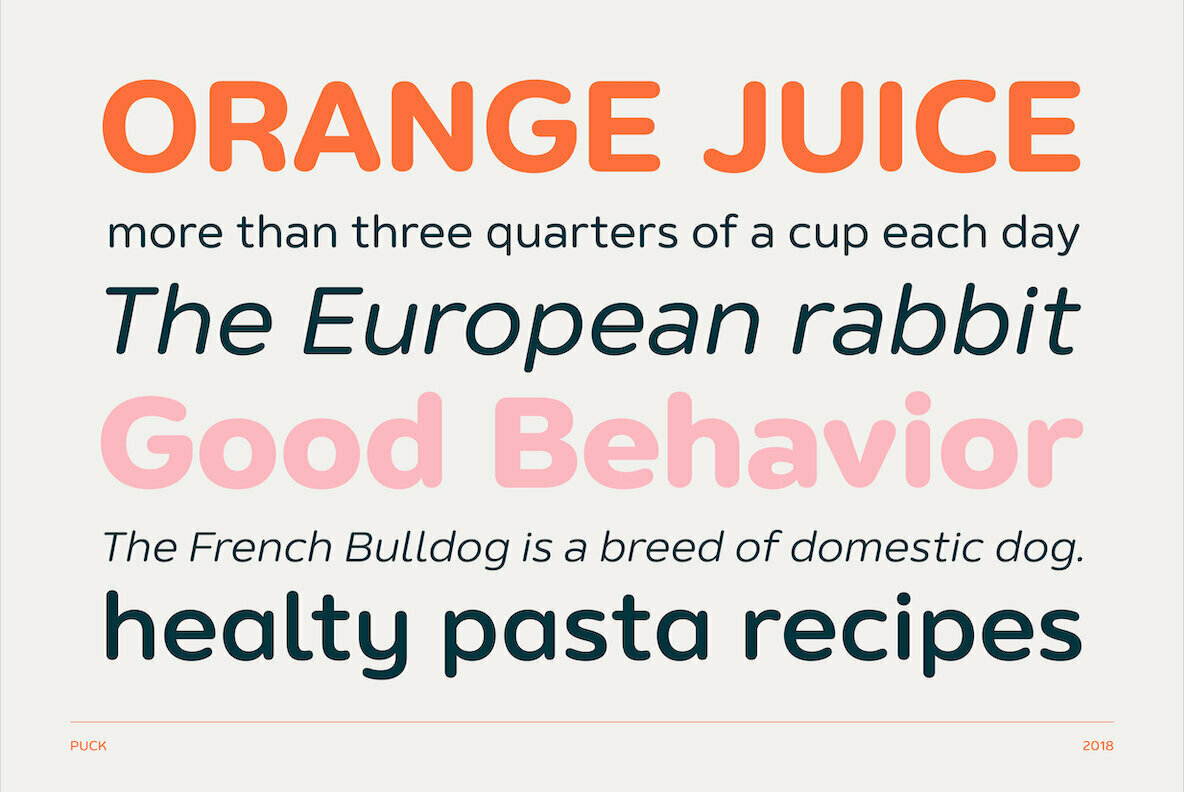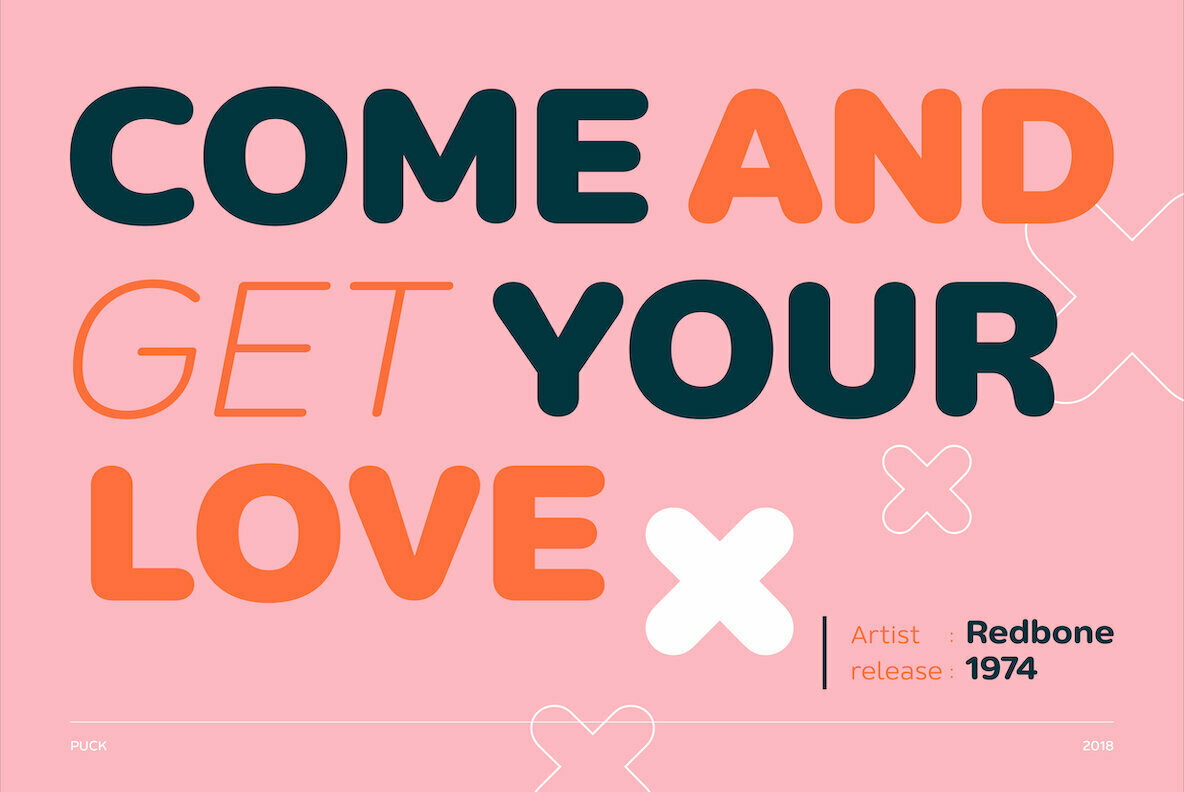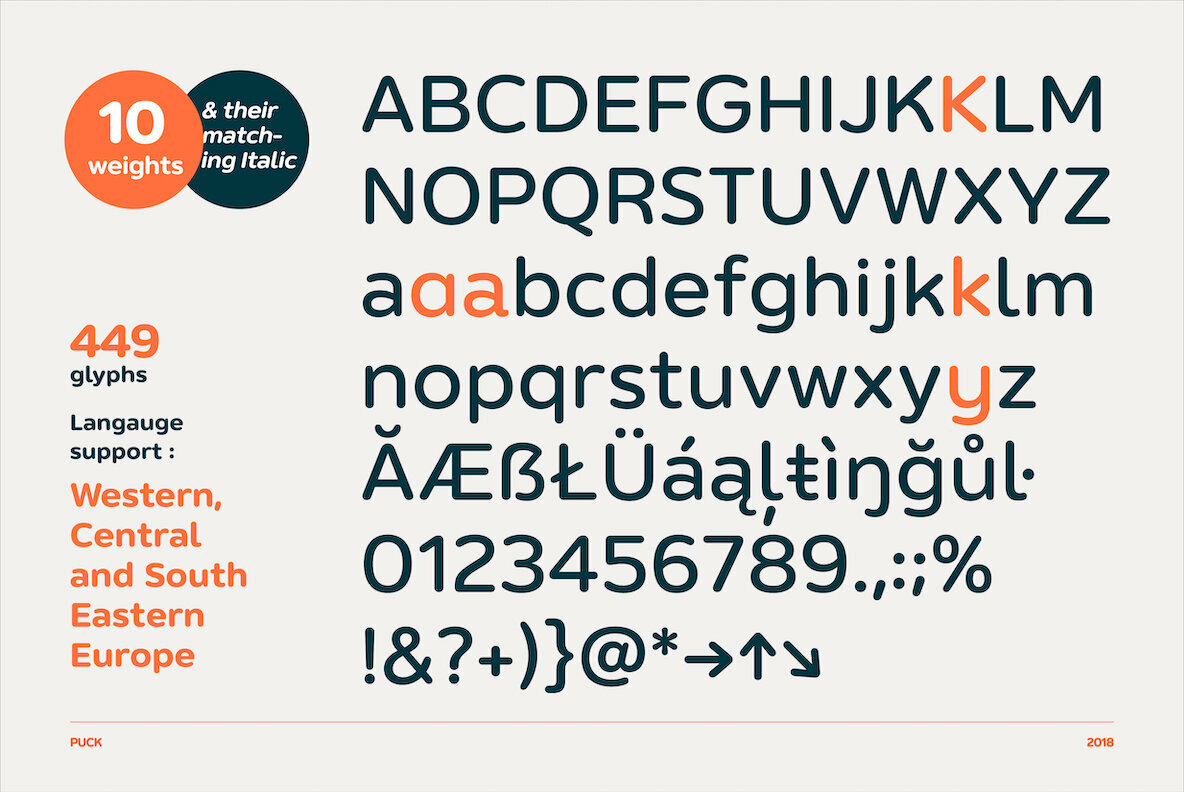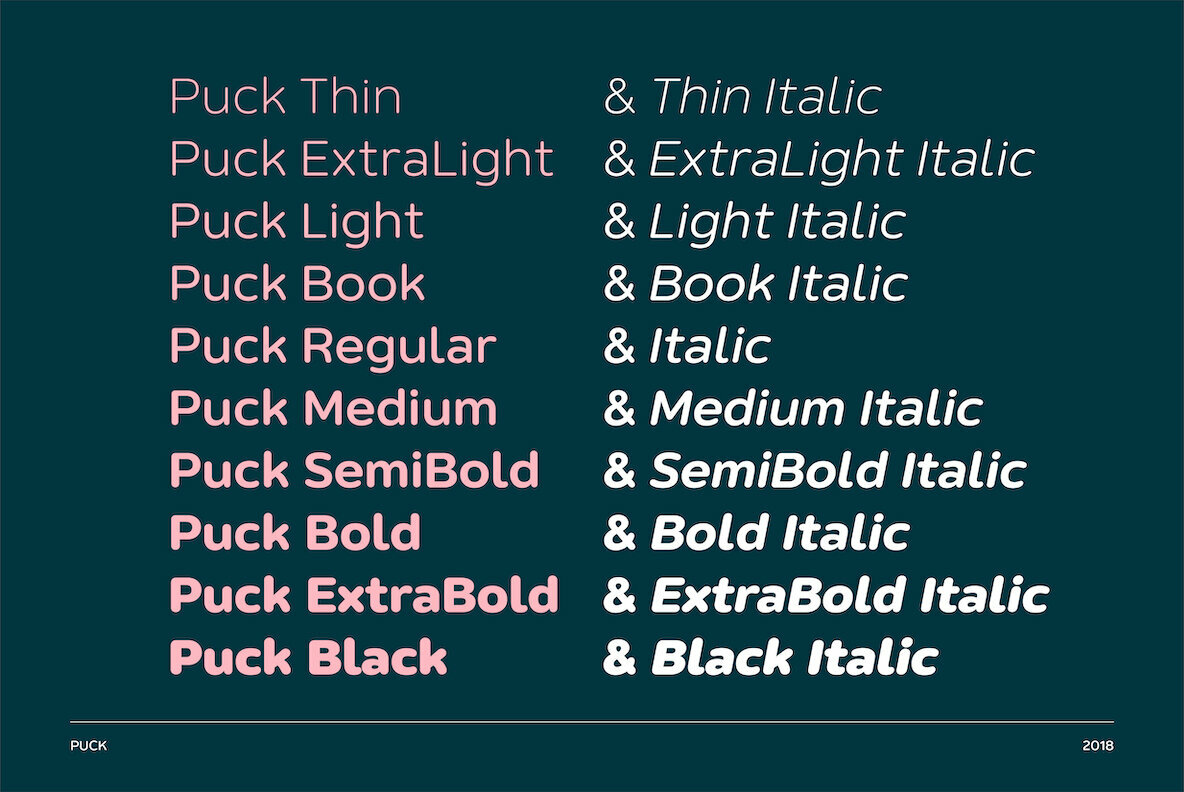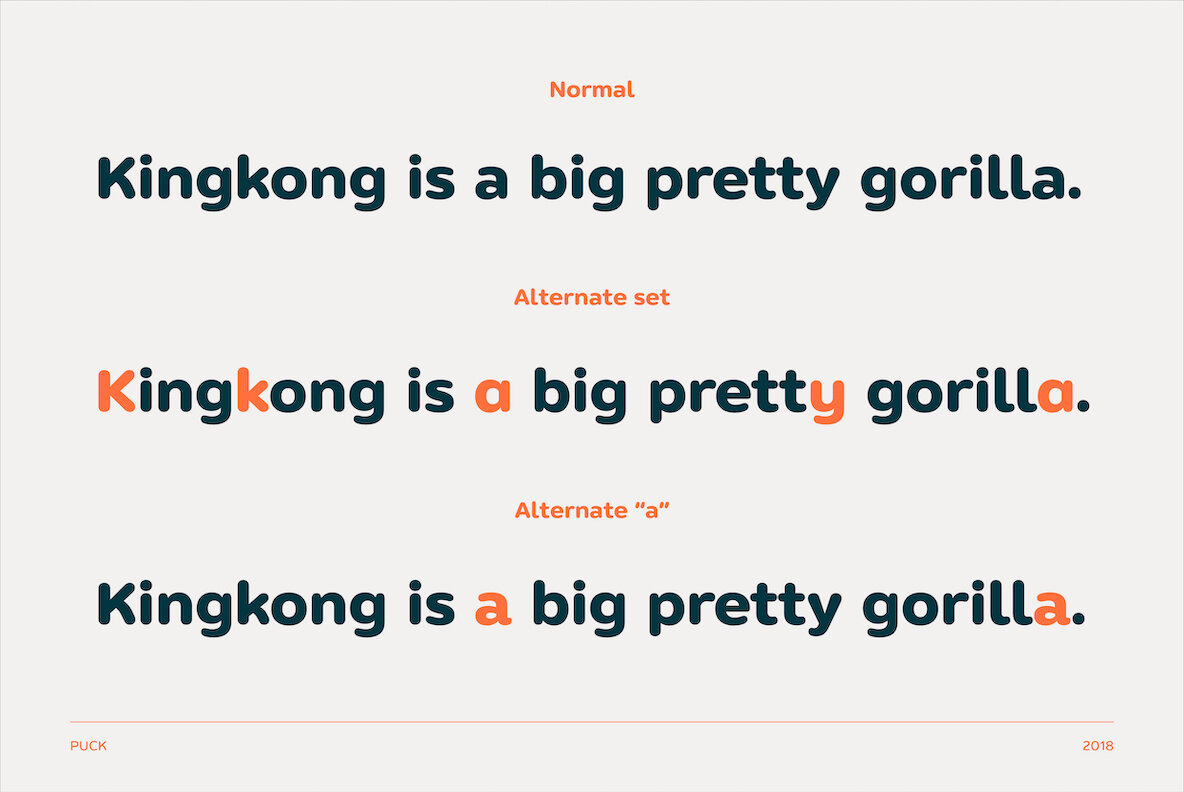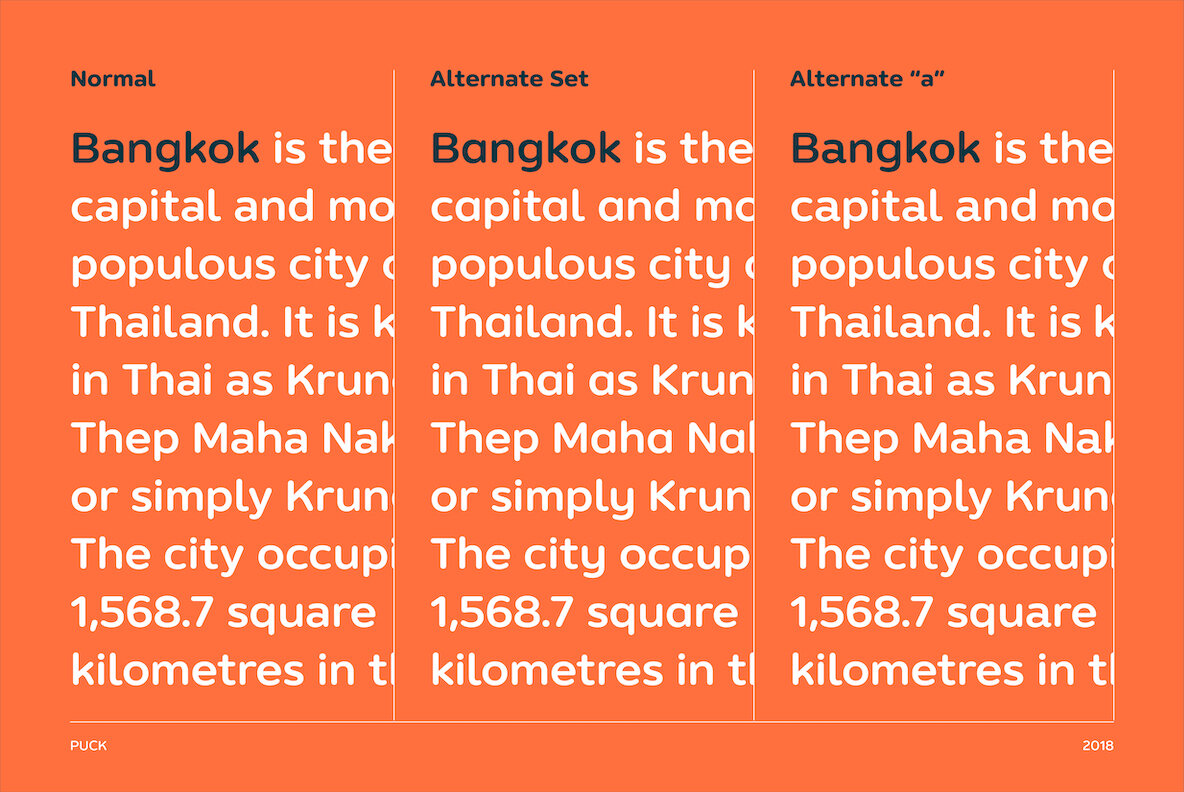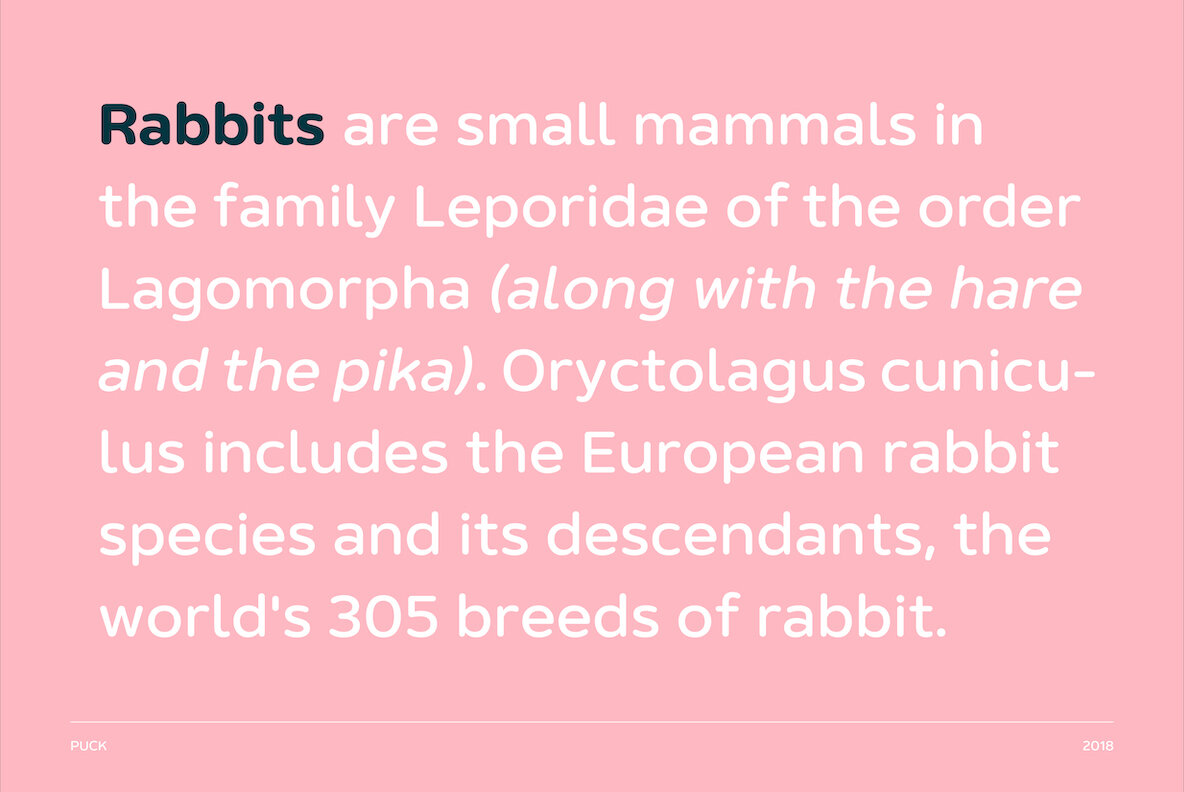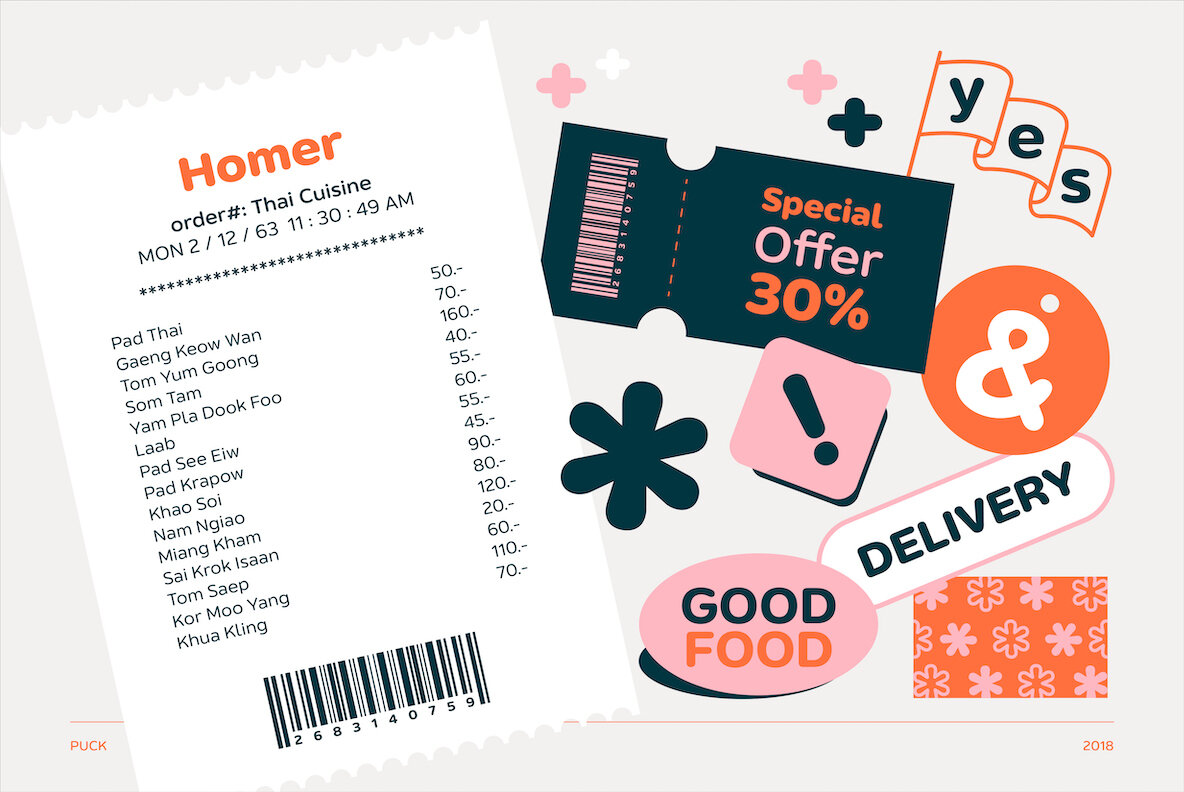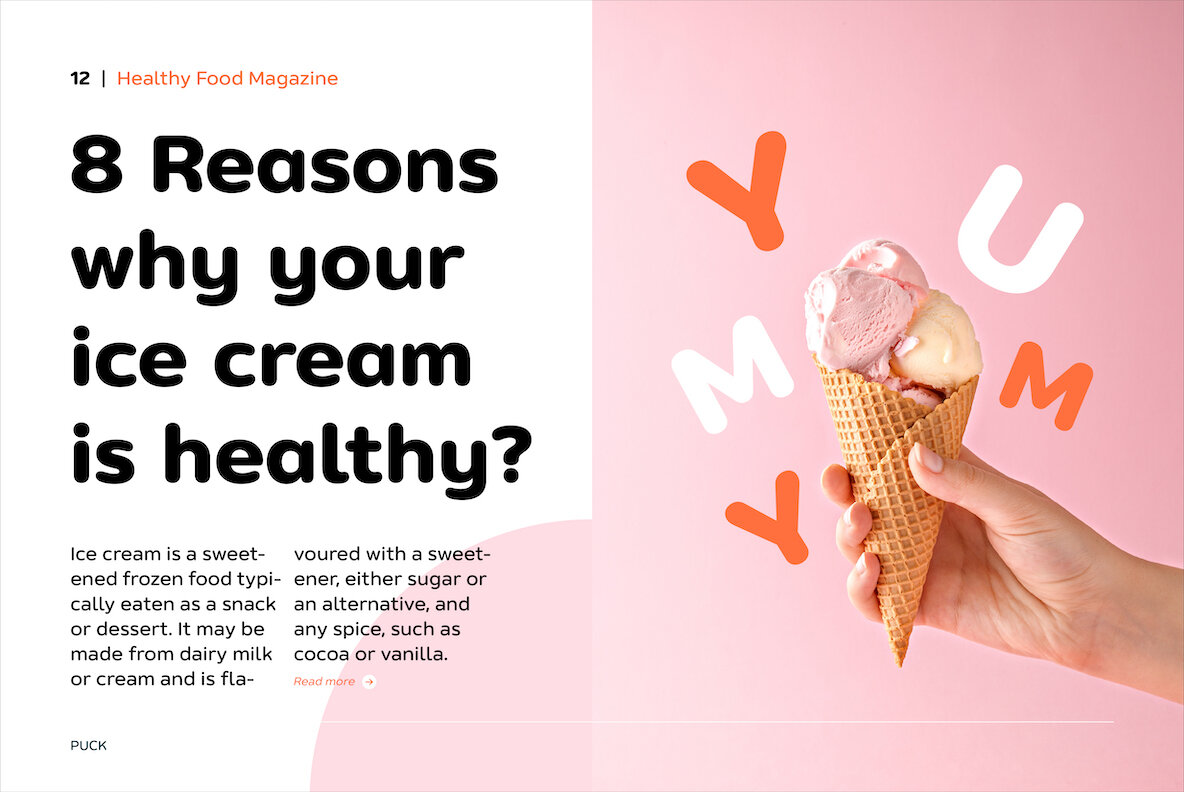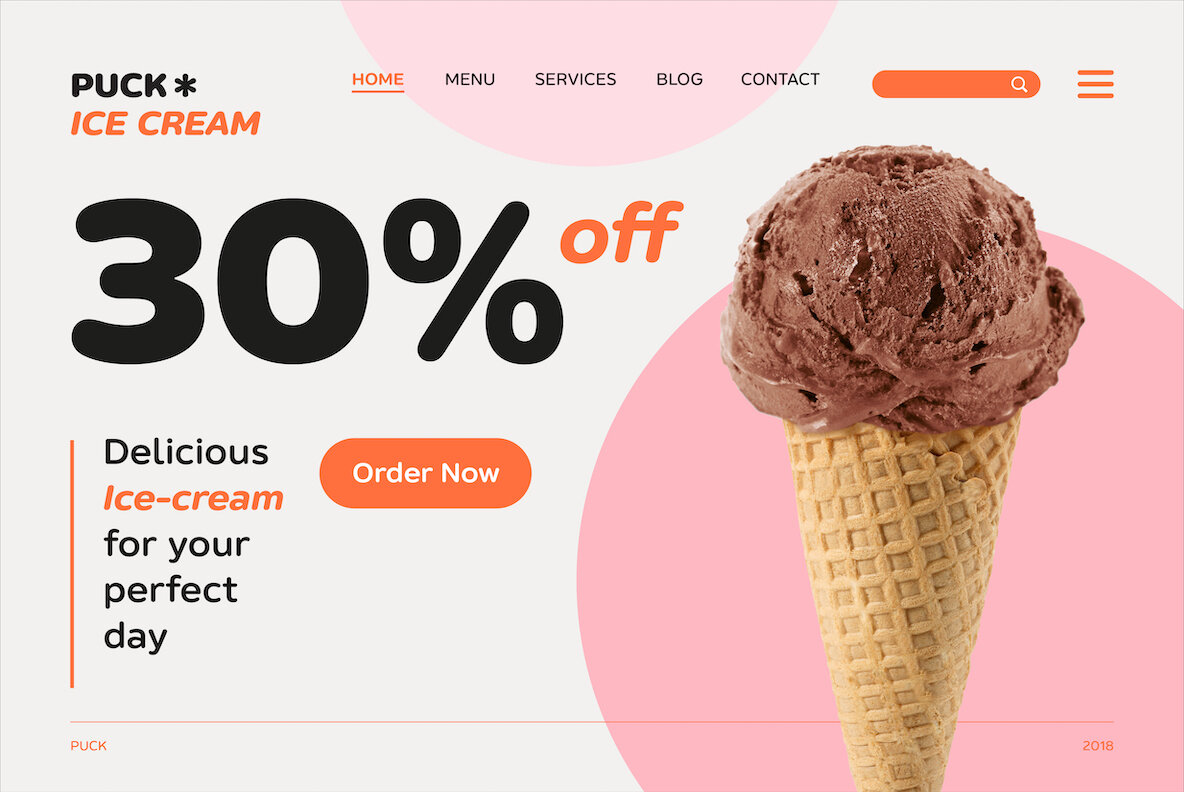
PUCK Font
Puck, a rounded sans serif typeface, offers a versatile collection of 20 styles, including variations from Thin to Black and their matching italics. Designed for optimal legibility across large and small sizes, Puck features extended characteristics, open negative spaces, and a generous overall width. Puck is ideally suited for a range of applications such as printed materials, publications, banners, branding, and signage. Its openness also ensures excellent performance on screens, making it a reliable choice across various media.Puck Typeface: Rounded Sans Serif Excellence